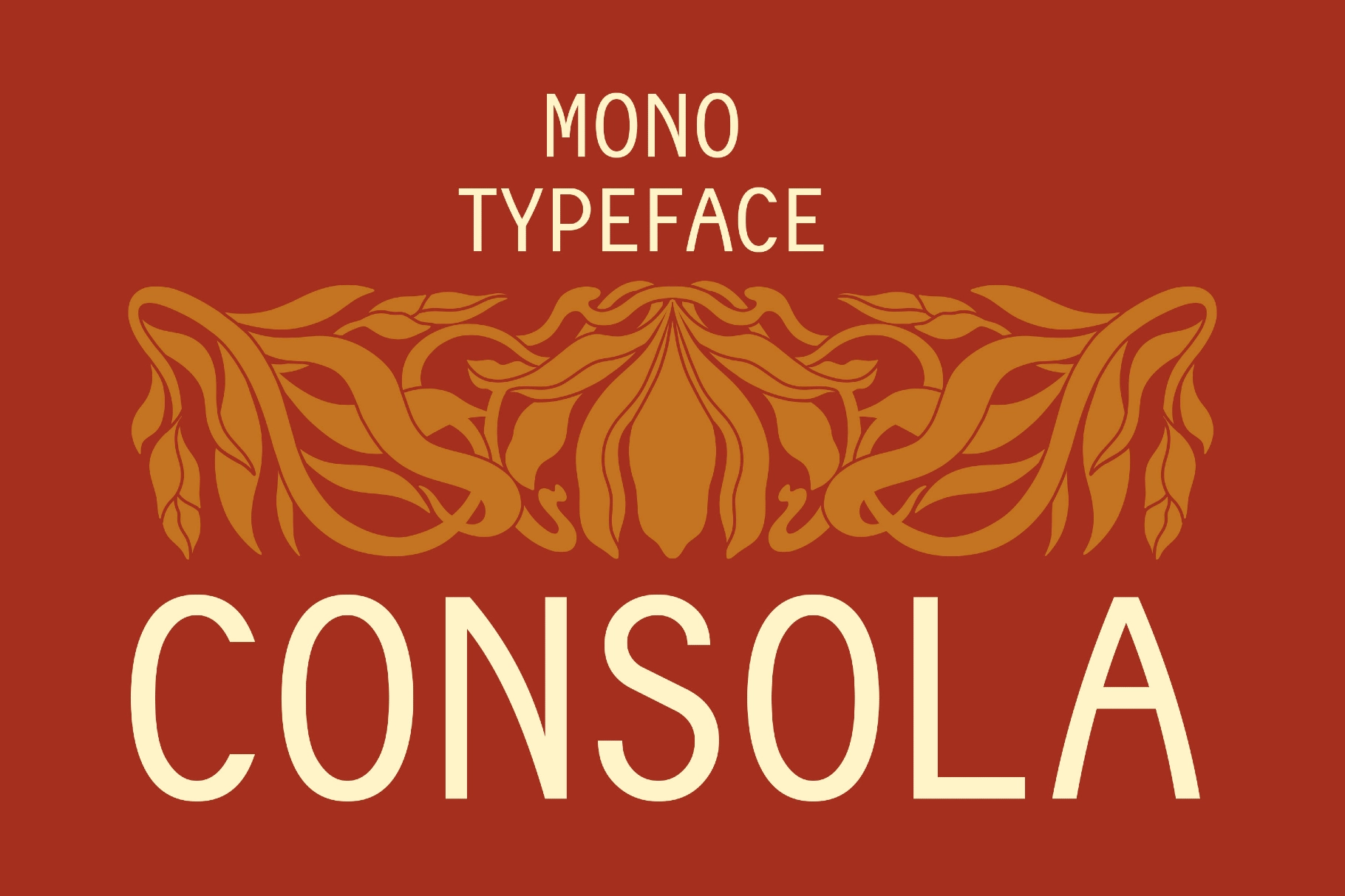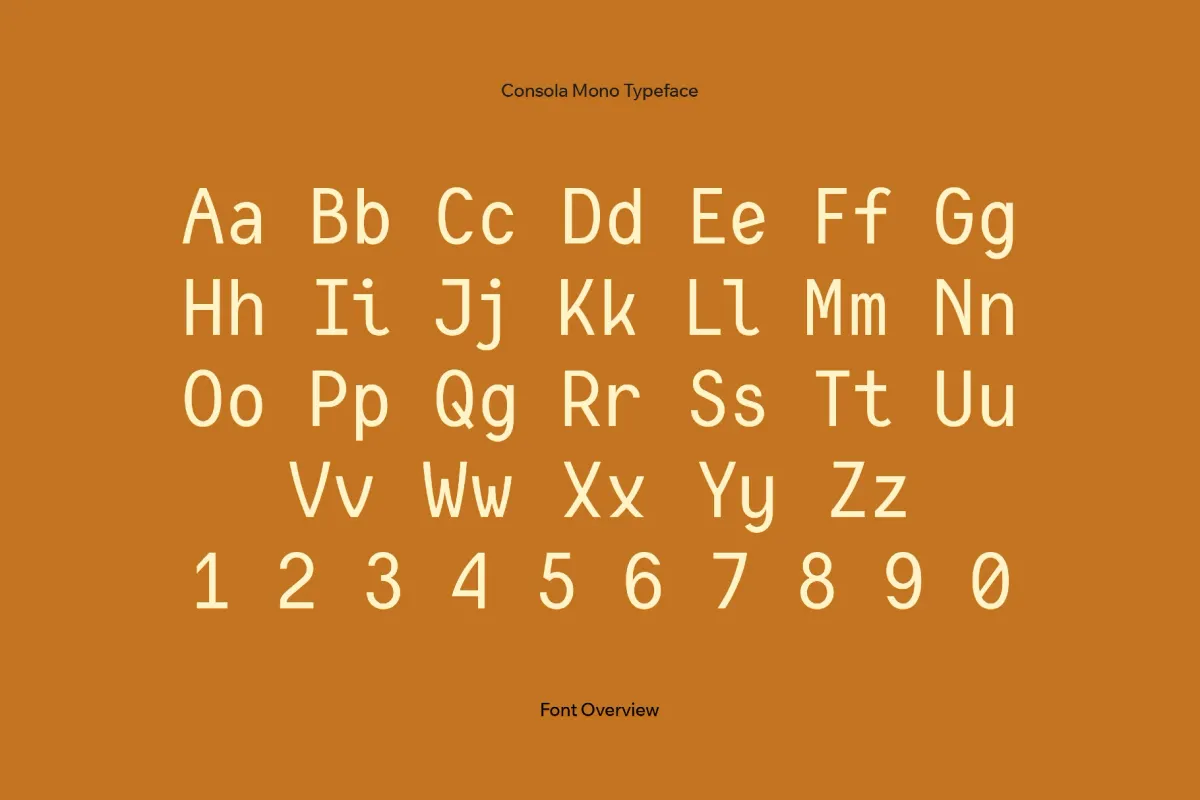
Consola Mono Typeface
It's a clear monospaced type with open shapes, measured proportions, and a steady rhythm. The rounded counters and lightly softened strokes keep Consola Mono approachable, yet the disciplined, utilitarian tone keeps its positions.
Use it for documentation, UI mockups, dashboards, developer tools, syntax-highlighted blocks in editorial design, technical reports, and software branding. The typeface suits minimalist posters, onboarding flows, system diagrams, product walkthroughs, terminal-styled websites, code-driven identities, and clean packaging.
Included: two styles (Book and Bold), uppercase and lowercase letters, numbers, punctuation and symbols, international characters, extra symbols, plus multilingual support across extended Latin, Greek, and extended Cyrillic scripts.